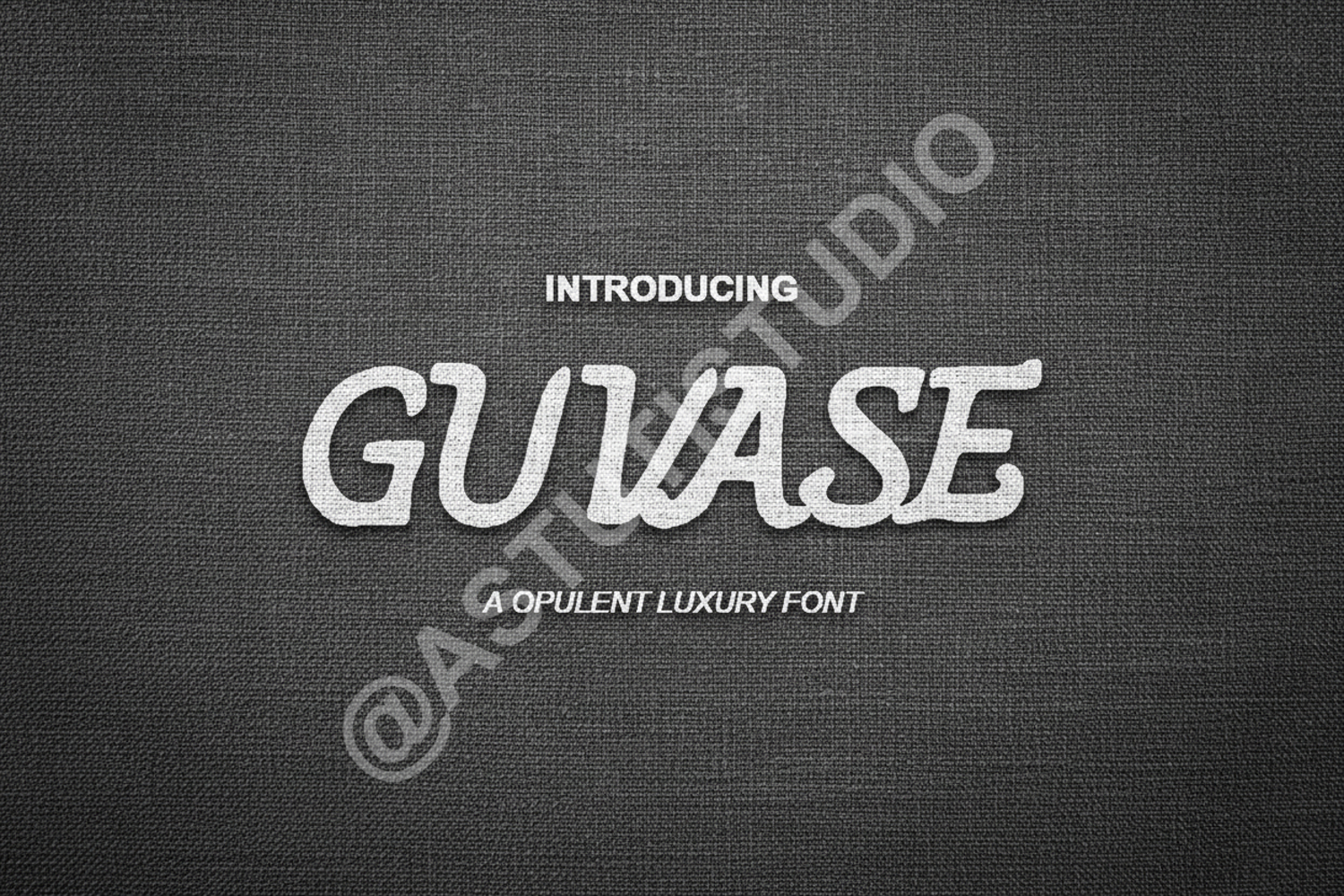
Guvase - Modern & Minimalist Sans Serif Font
Guvase
Elevate your creative projects with Guvase, a premium sans serif font that embodies modern sophistication and timeless elegance. Carefully crafted with clean lines and balanced proportions, Guvase is designed to provide a professional edge to any design layout. Whether you are working on a high-end corporate identity or a minimalist lifestyle brand, this font offers the versatility and clarity needed to stand out in a crowded market.
- Comprehensive Character Set (Uppercase and Lowercase)
- Numerals and Punctuation
- Branding and Identity: Perfect for creating memorable logos and cohesive brand systems.
- Editorial Design: Ideal for magazine headlines, body text, and book covers.
- Digital Marketing: Enhances social media graphics, website headers, and digital advertisements.
- Stationery: Adds a touch of class to business cards, invitations, and letterheads.
- Product Packaging: Delivers a clean, luxury feel for retail and premium goods.